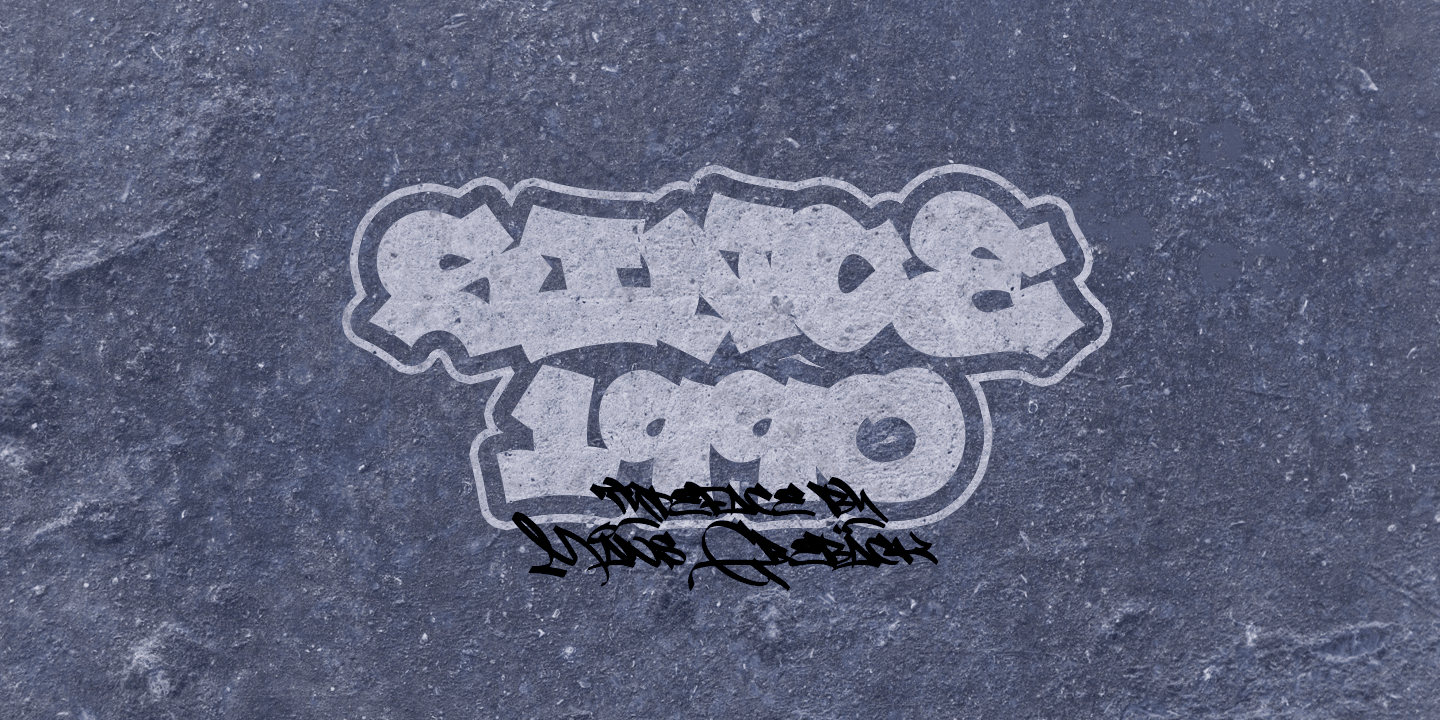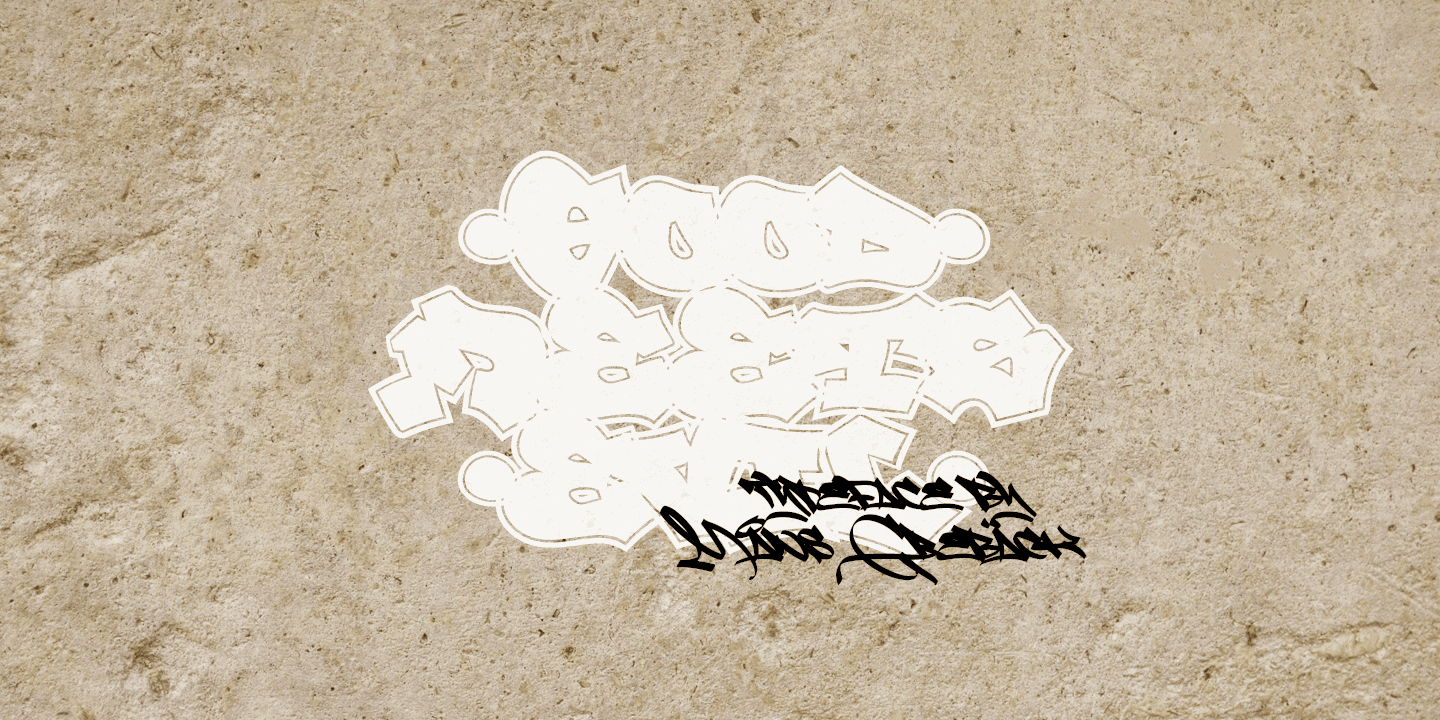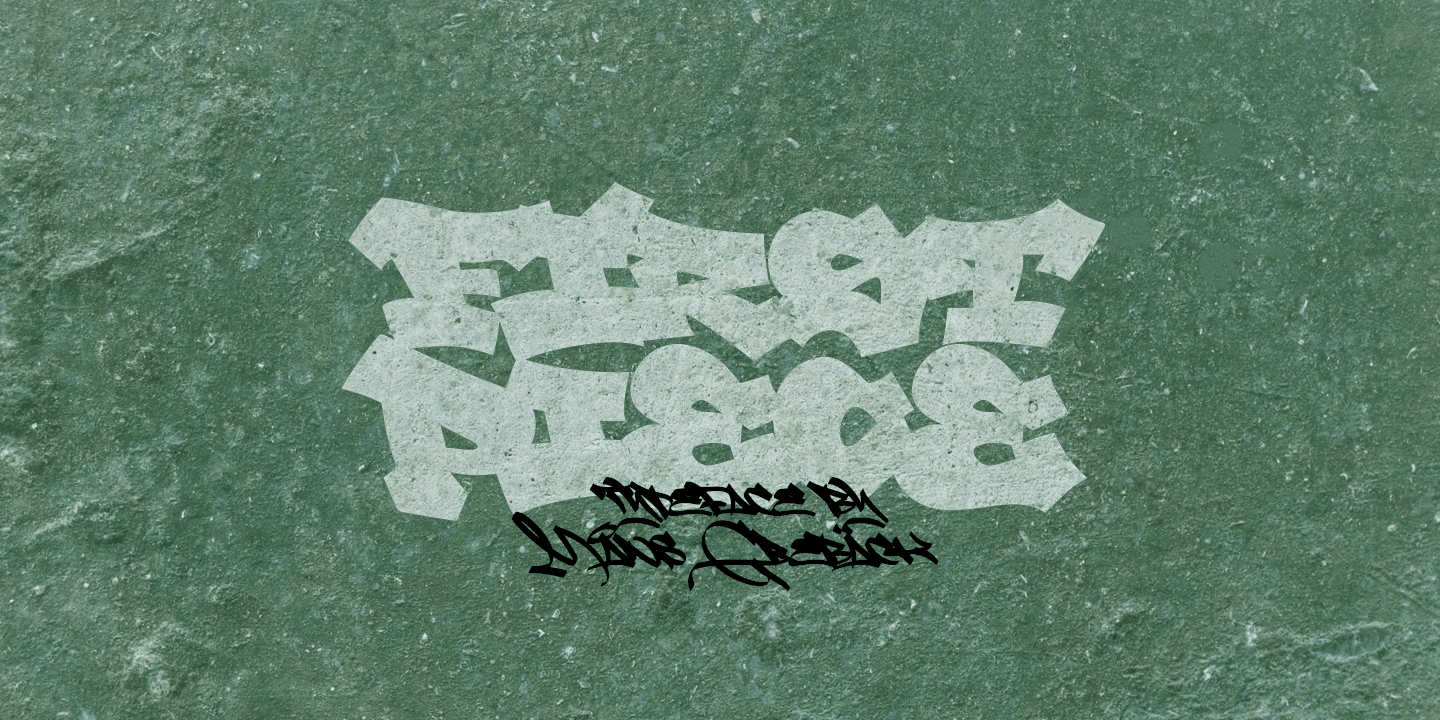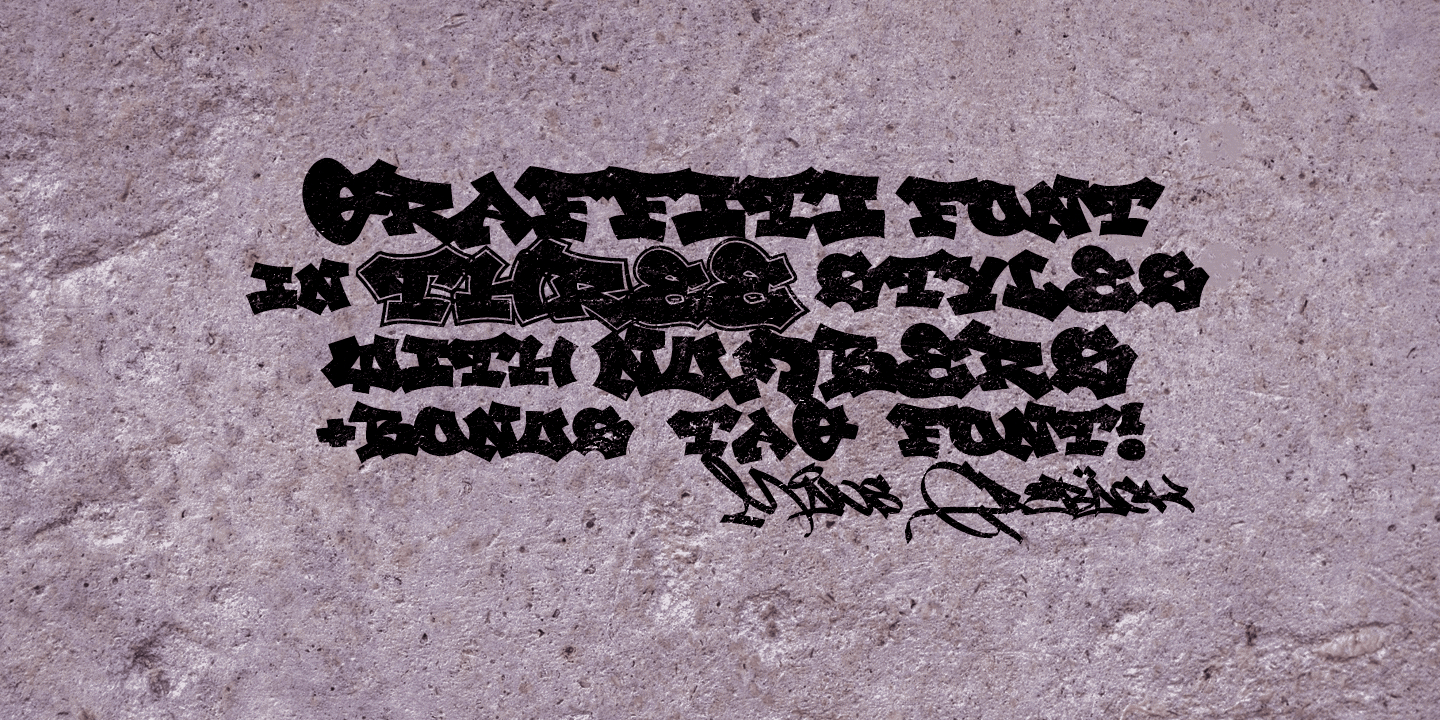
Spoken
Spoken is an old school graffiti typeface, drawn by Måns Grebäck in 2019.
It comes in three styles: The stylish outlined default style; BG, a bold background style and Plain, a basic font for simpler creations.
Also included is a complementary tag font from the Wandals typeface family. Each of the fonts contain support for a wide range of languages.